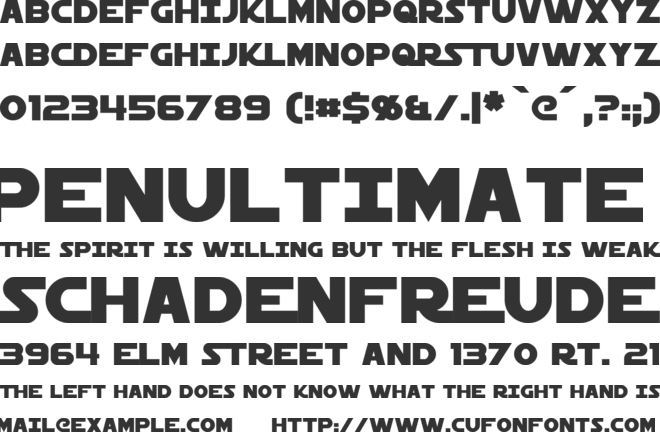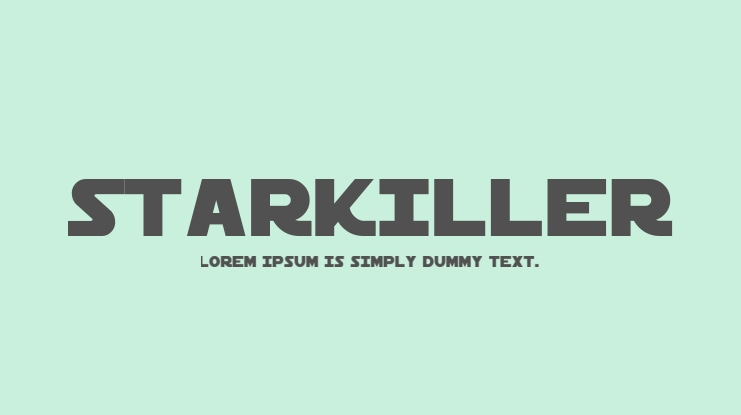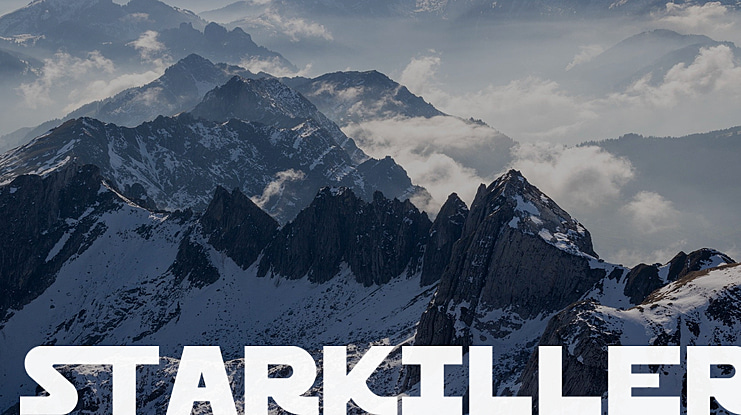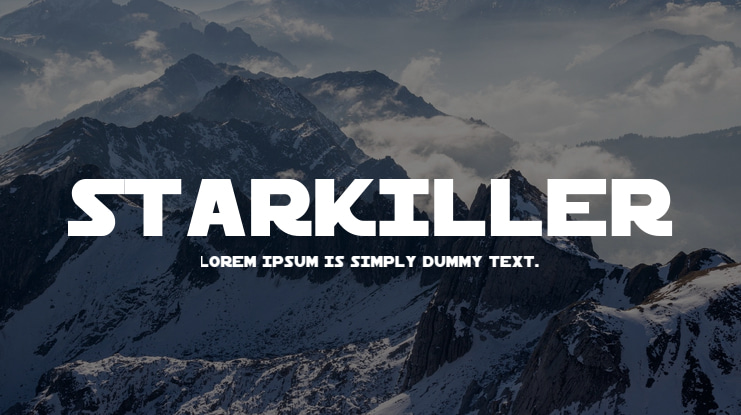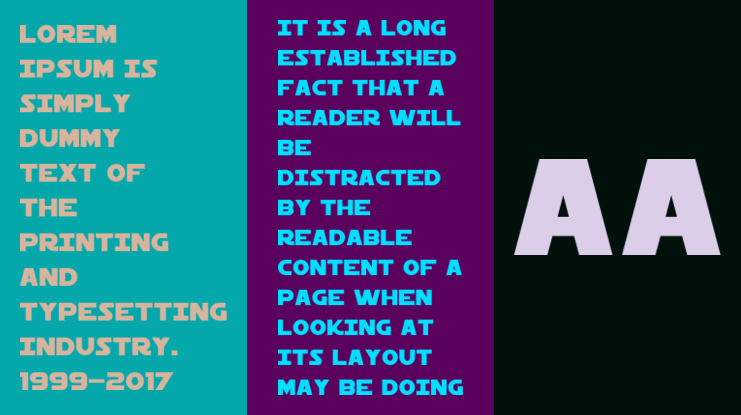
Starkiller Font Family
Neale Davidson
This is the obligatory "Star Wars" logo font, based off of the movie marquees from "A New Hope" through "Return of the Jedi". Includes italics and hollow versions.